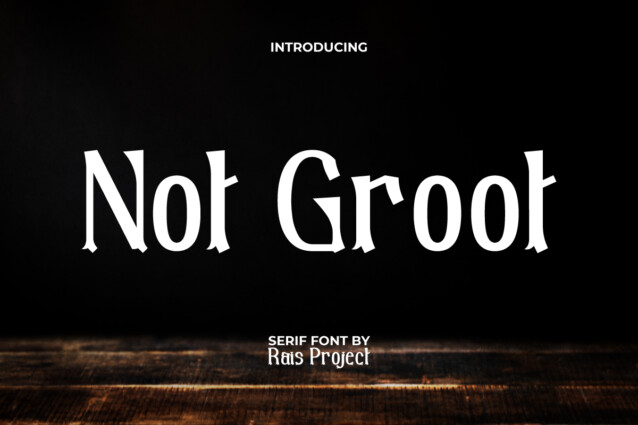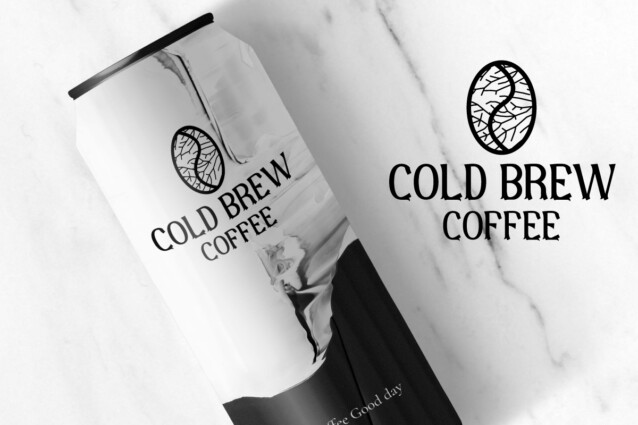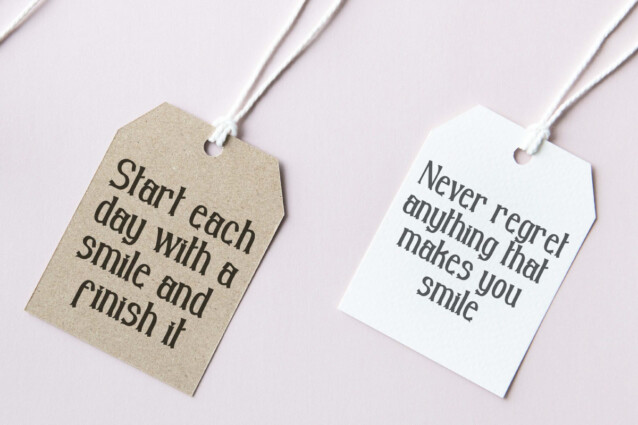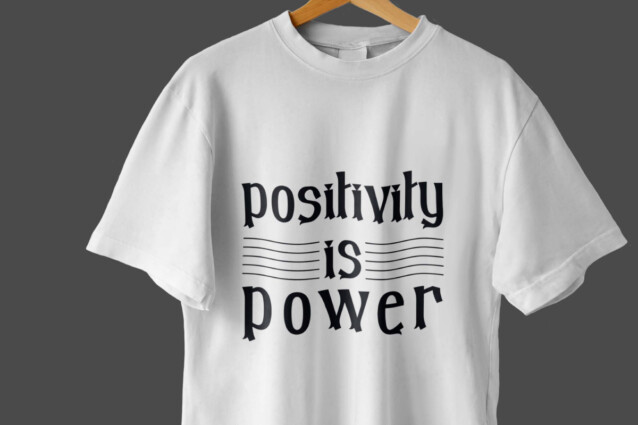
Not Groot Font
Not Groot Font is a fun yet casual and modern serif display font. The shape of this font is adapted to the adorable Groot character! It will be good for any designs, such as brand logo, cover, custom design, greeting card, invitation, label, magazine, menu, poster, product packaging, quote, signage, web, and more!